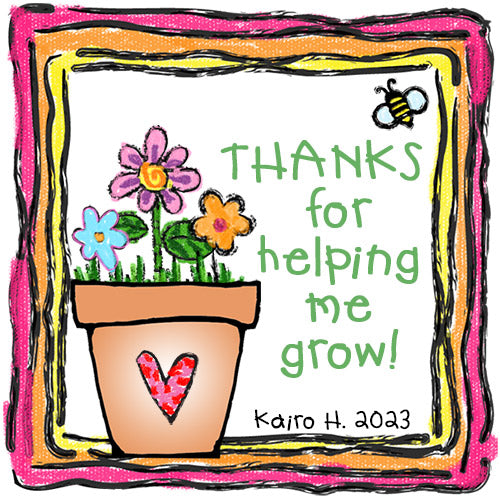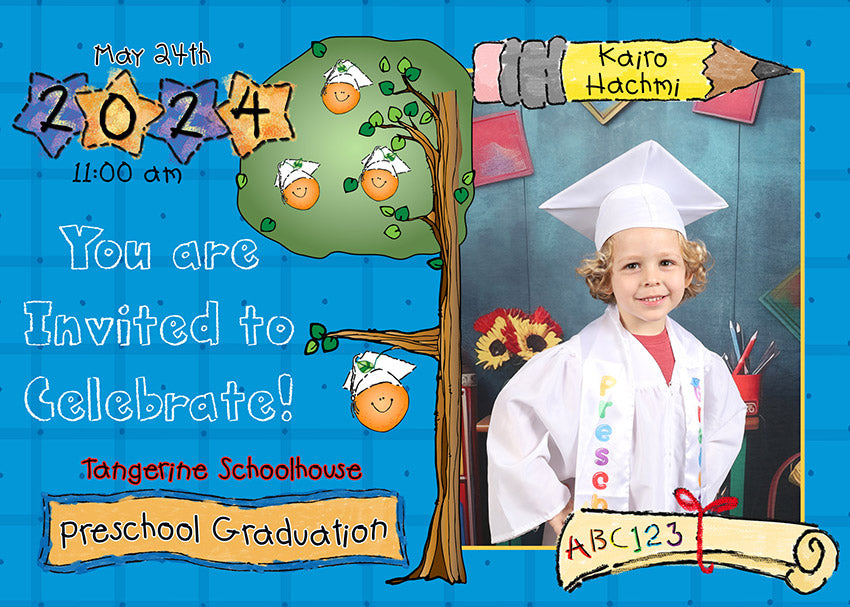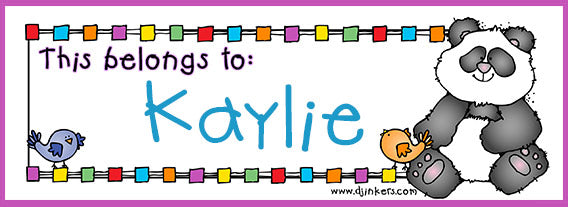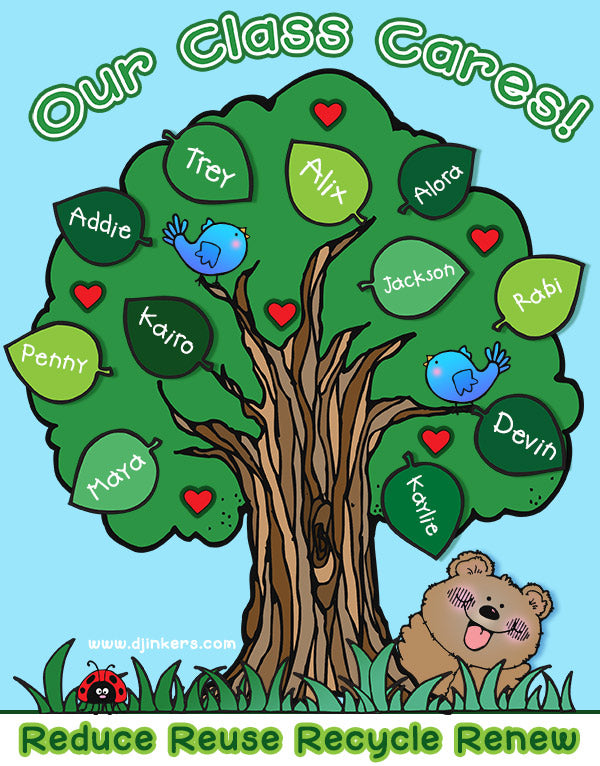
Our DJ Crayon font is a playful way to write like a kid and add smiles to your project.
DJ Crayon Font - Cute Handwritten Kids Lettering
Type-up a smile with our playful DJ Crayon font! This hand-written lettering gives your projects a whimsical kid-written style that adds a friendly, youthful touch to any project. Great for preschool, kindergarten, kids' rooms, playrooms and lots of fun to pair with our crayon or chalkboard clip art.